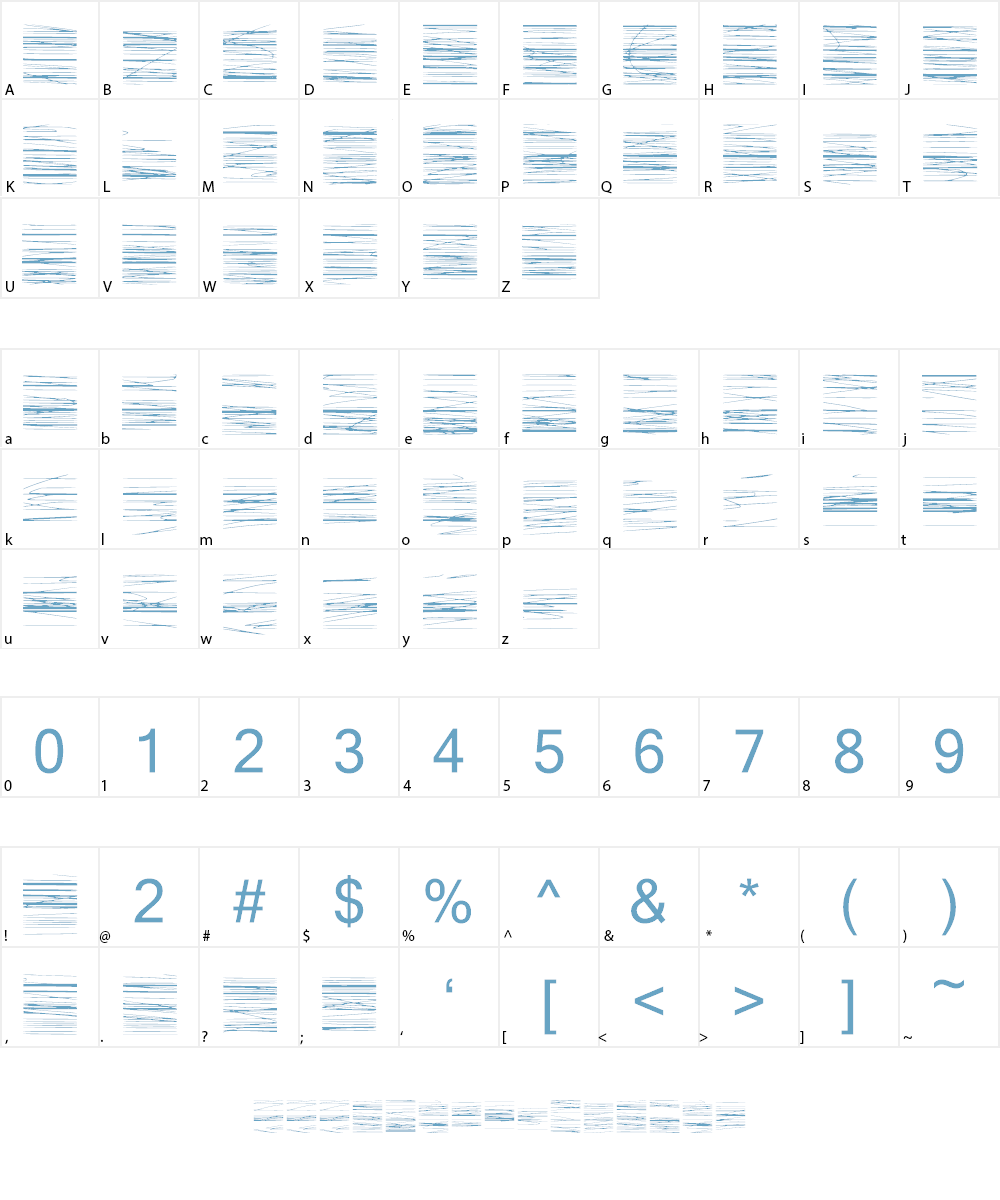
Based on the static you see on old TVs. If you like this then check out my font shop at https://www.creativefabrica.com/ref/186/ free stuff there too!